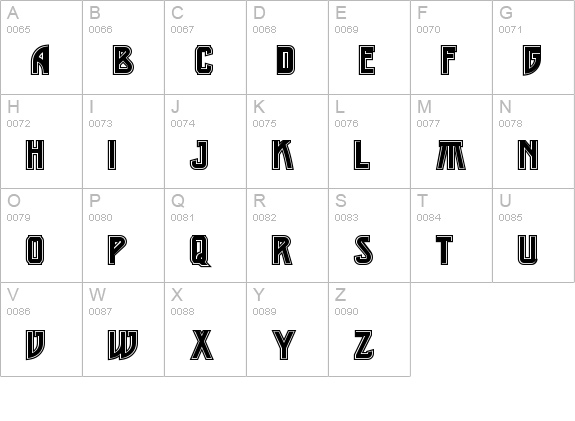
MiddleEarthNF Medium Font Details
MiddleEarthNF Medium is a balanced, medium-weight variant in the MiddleEarthNF typeface family \xE2\x80\x94 well suited to sub-headlines, navigation, and balanced editorial work.
MiddleEarthNF Medium font is a beautifully crafted typeface that combines elegance with a touch of fantasy. Its sleek and balanced design makes it perfect for a wide range of projects, from branding to editorial design. The medium weight strikes a perfect balance between boldness and readability, making it versatile for both display and body text. This font captures the essence of a mythical world, with its intricate details and unique character shapes. Whether you're looking to create a magical atmosphere or add a touch of sophistication to your designs, MiddleEarthNF Medium font is sure to impress. Best of all, MiddleEarthNF Medium font is available for free download at FontsMarket.com. So go ahead and bring a touch of enchantment to your projects with this exquisite typeface.